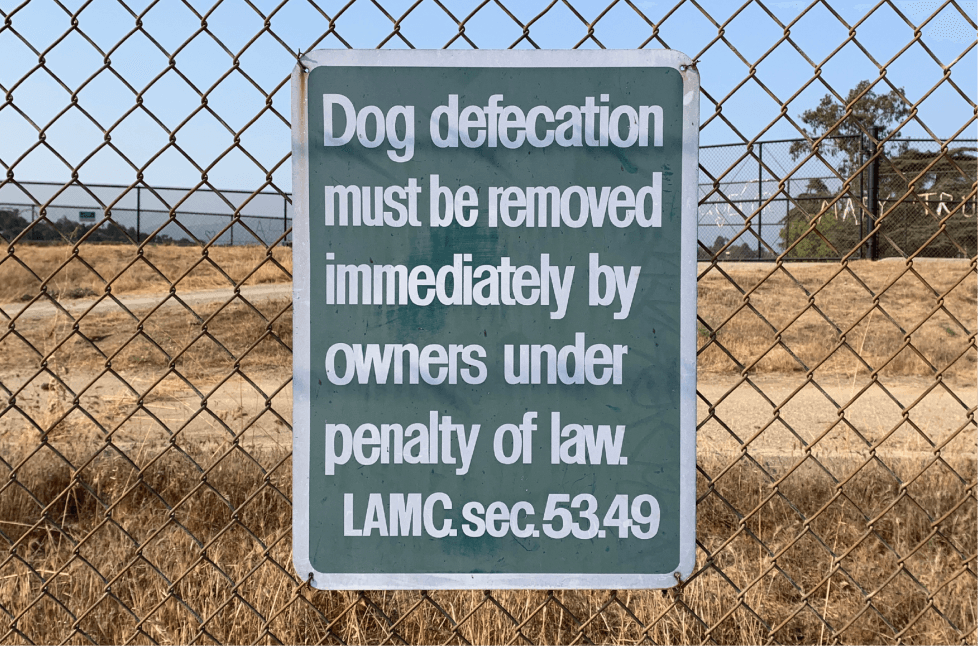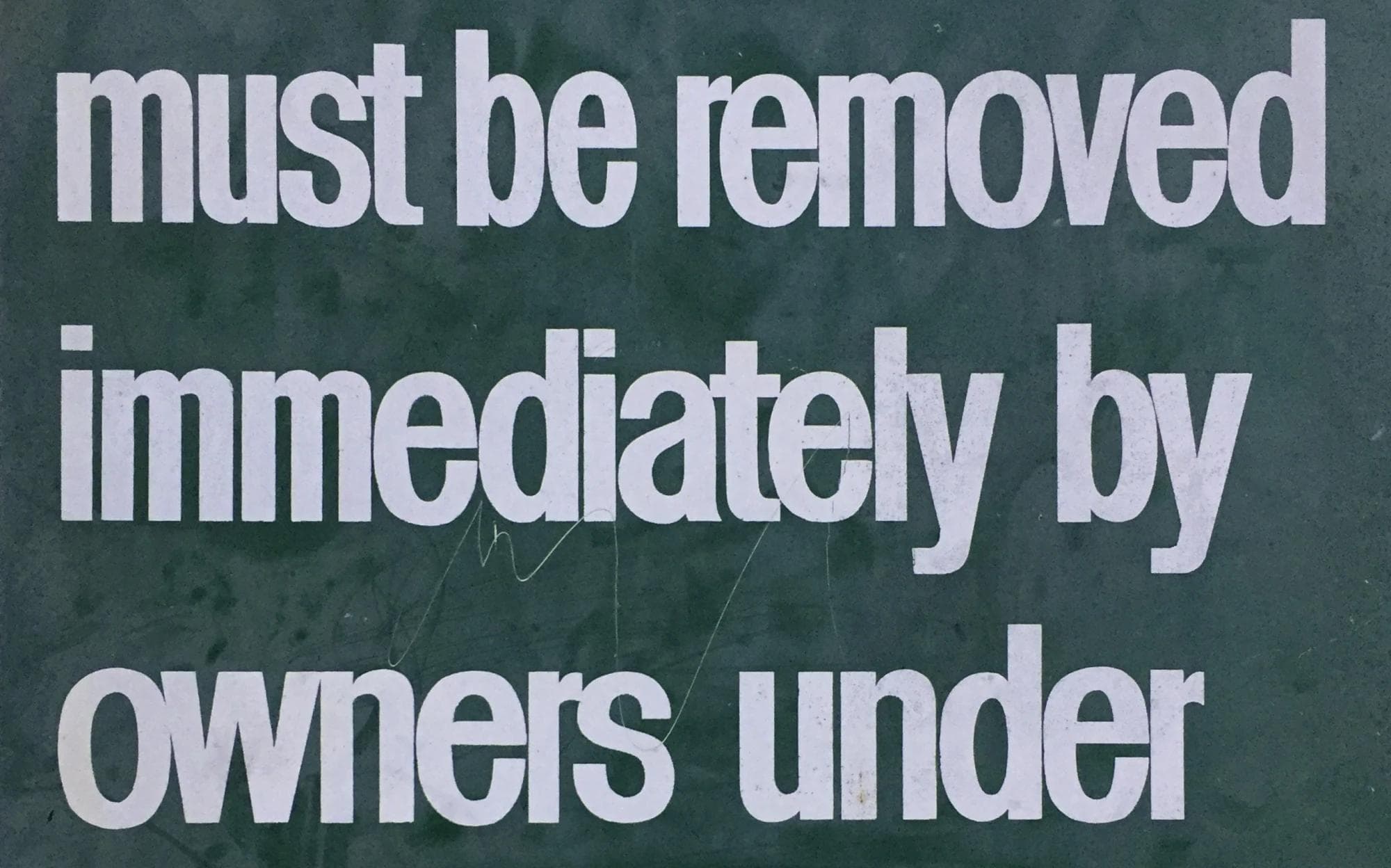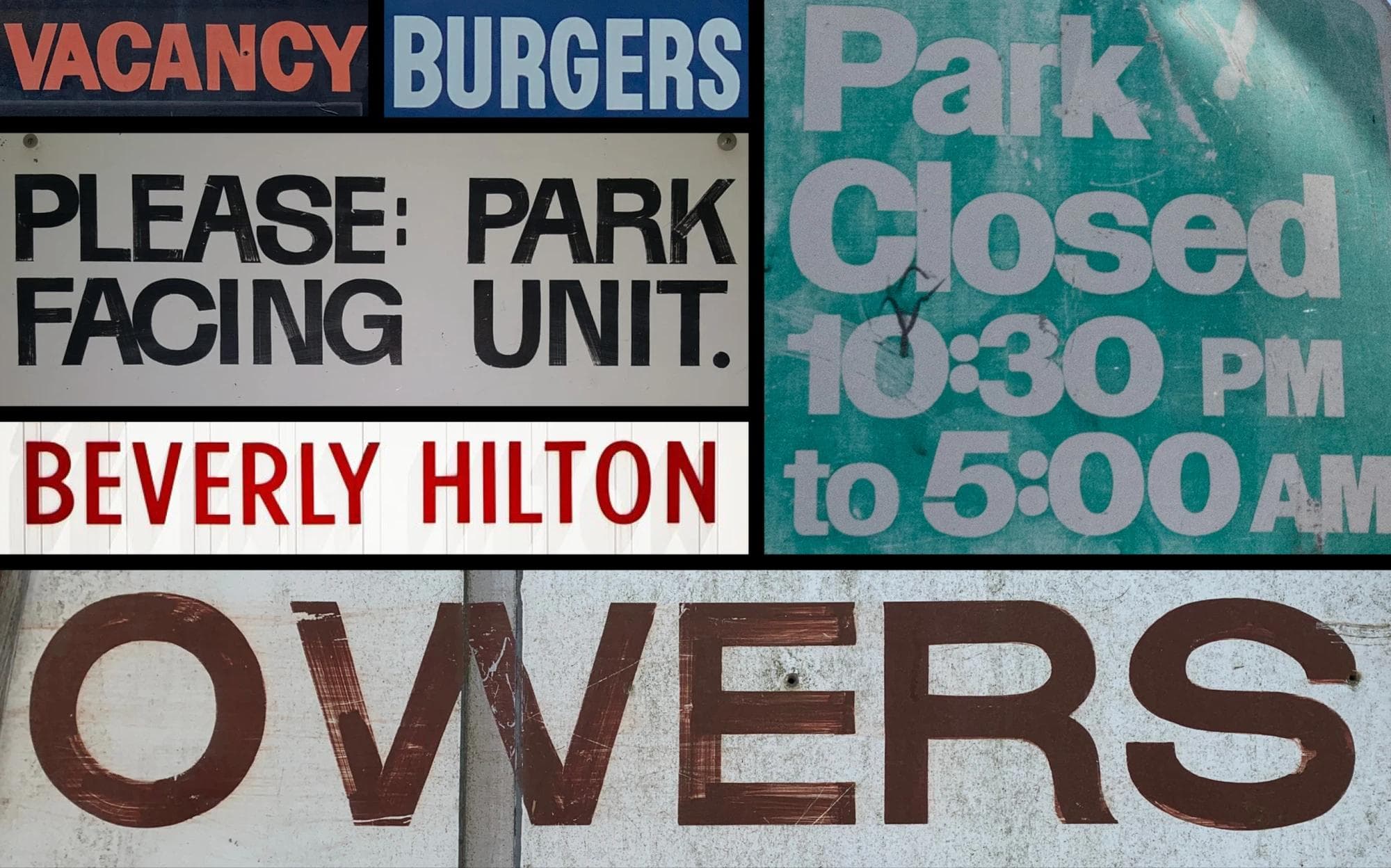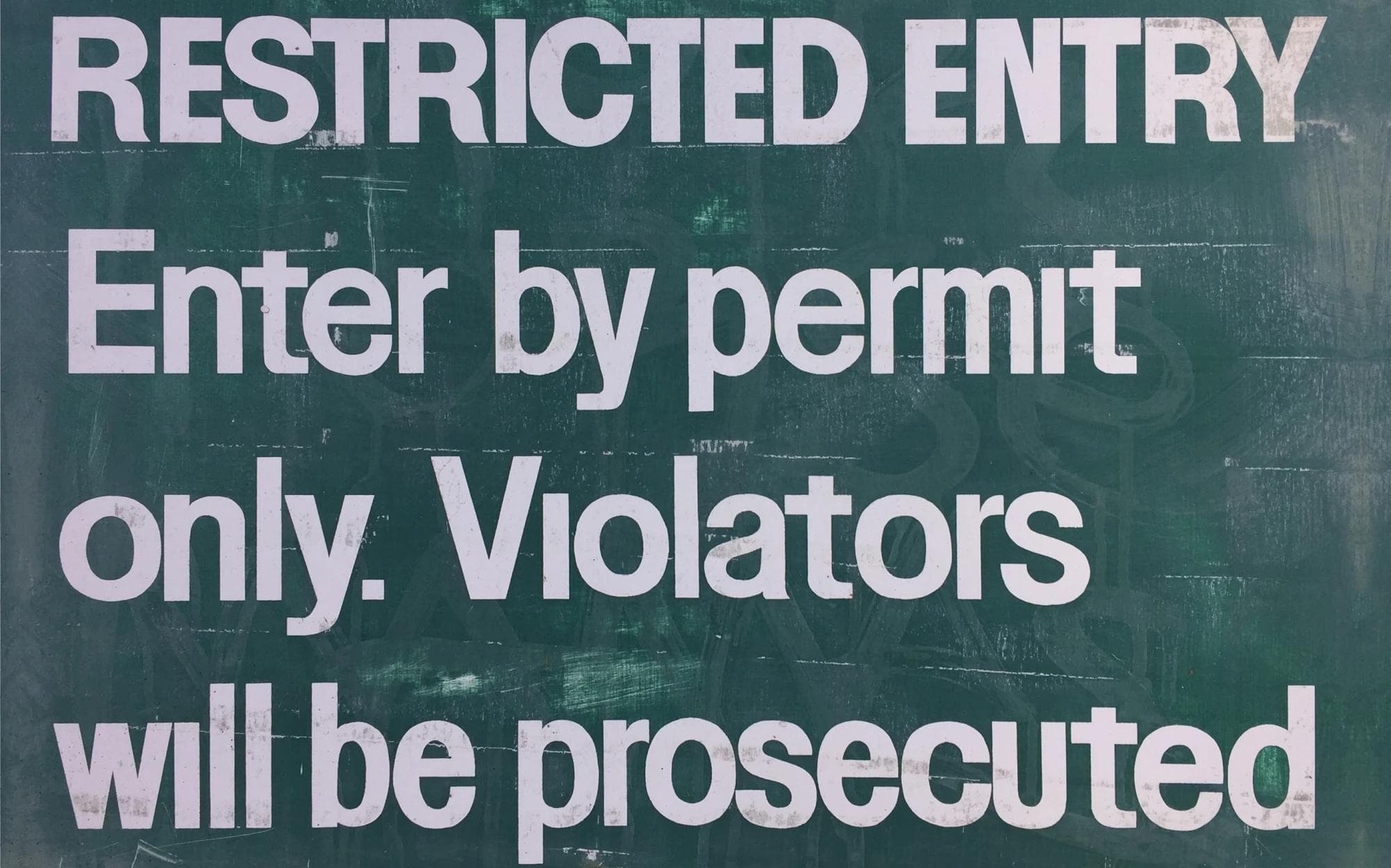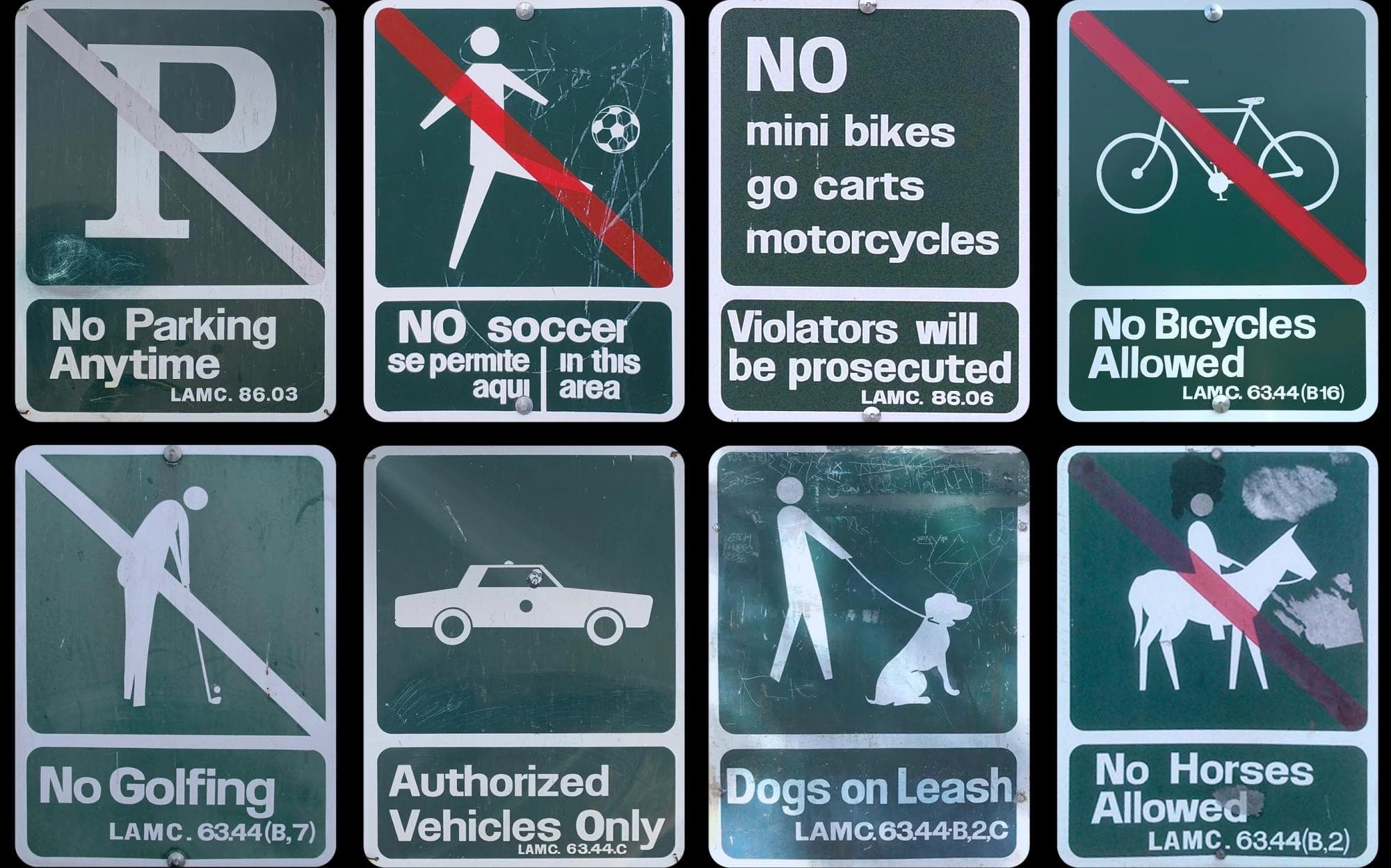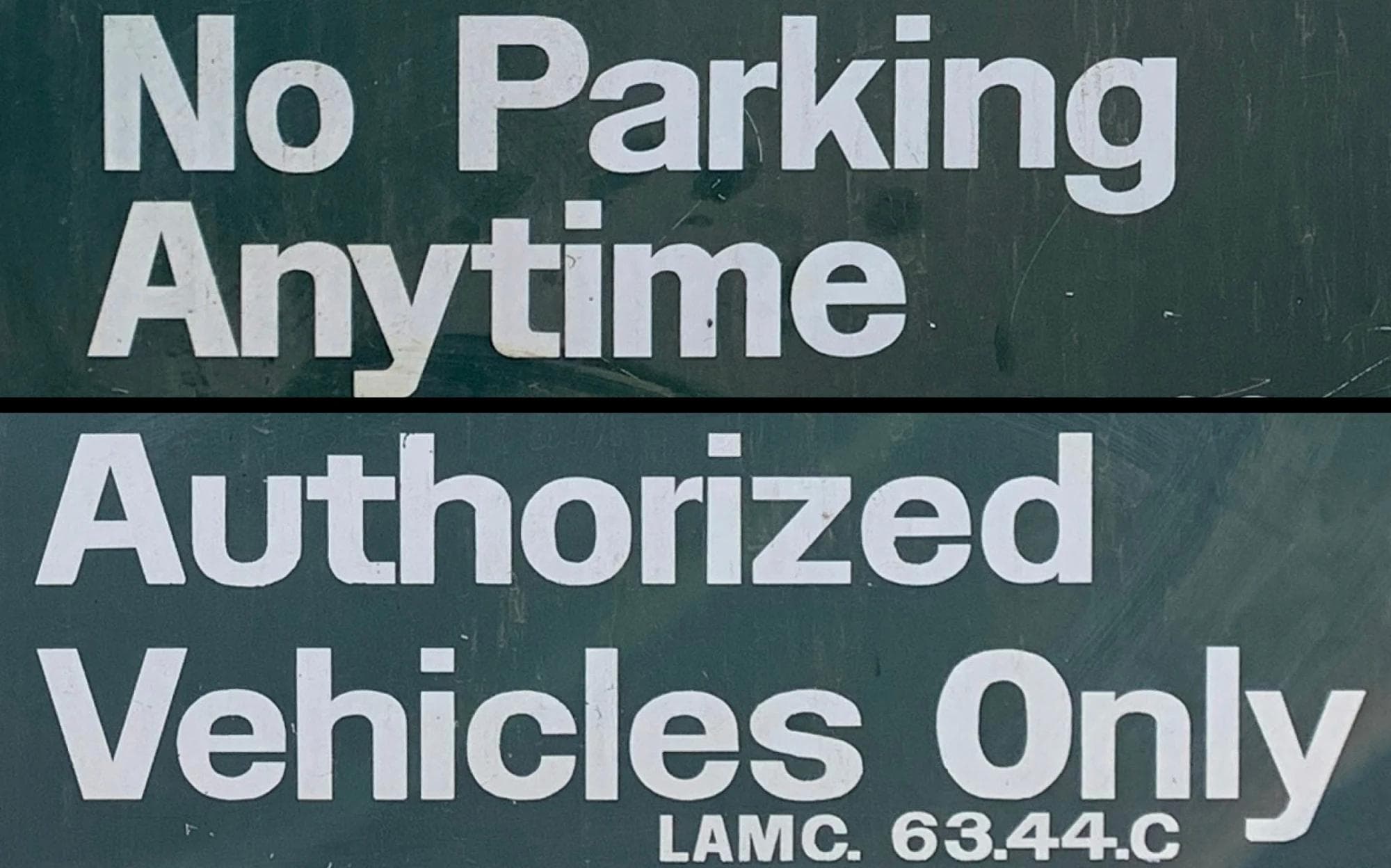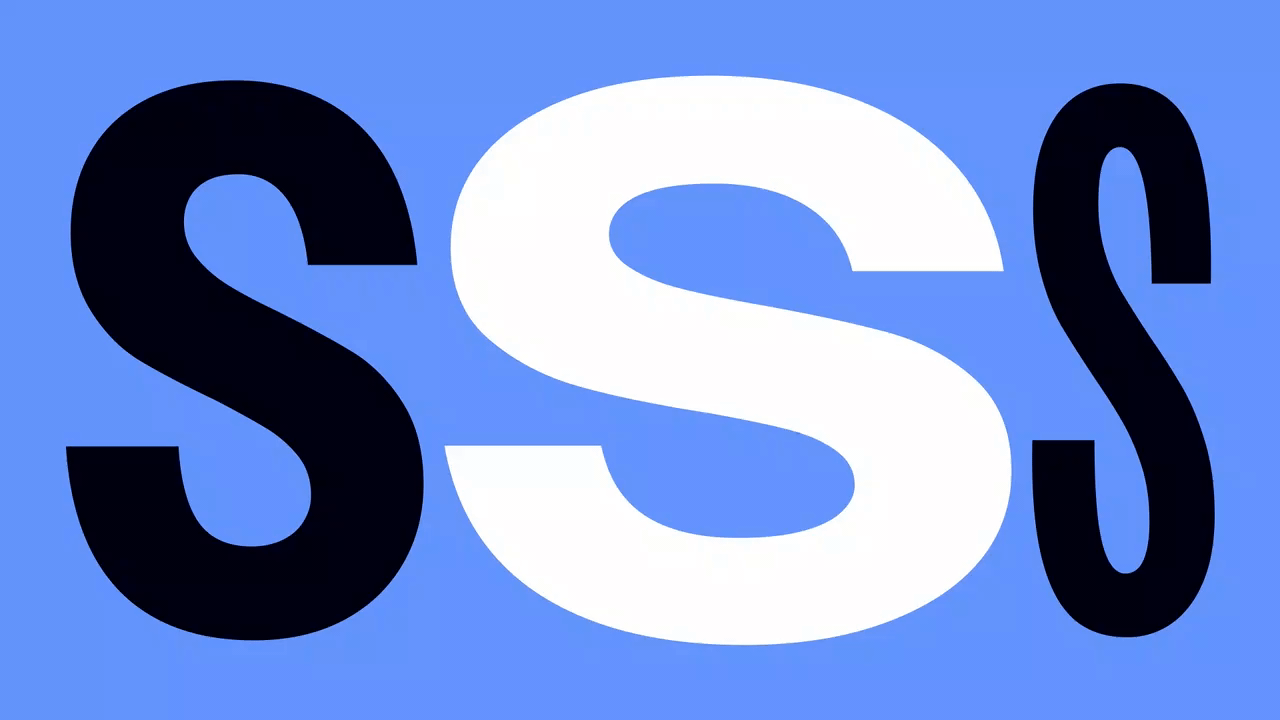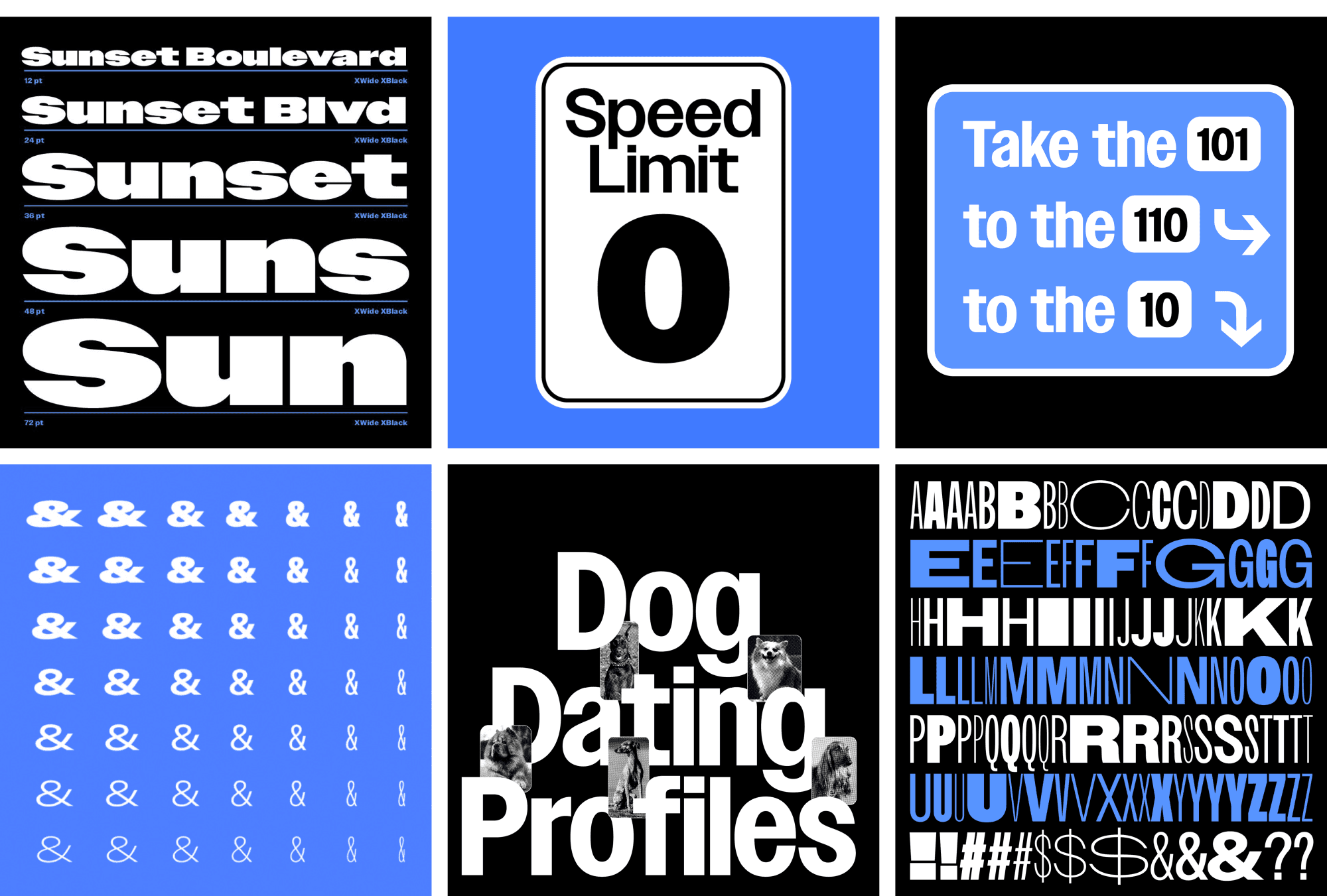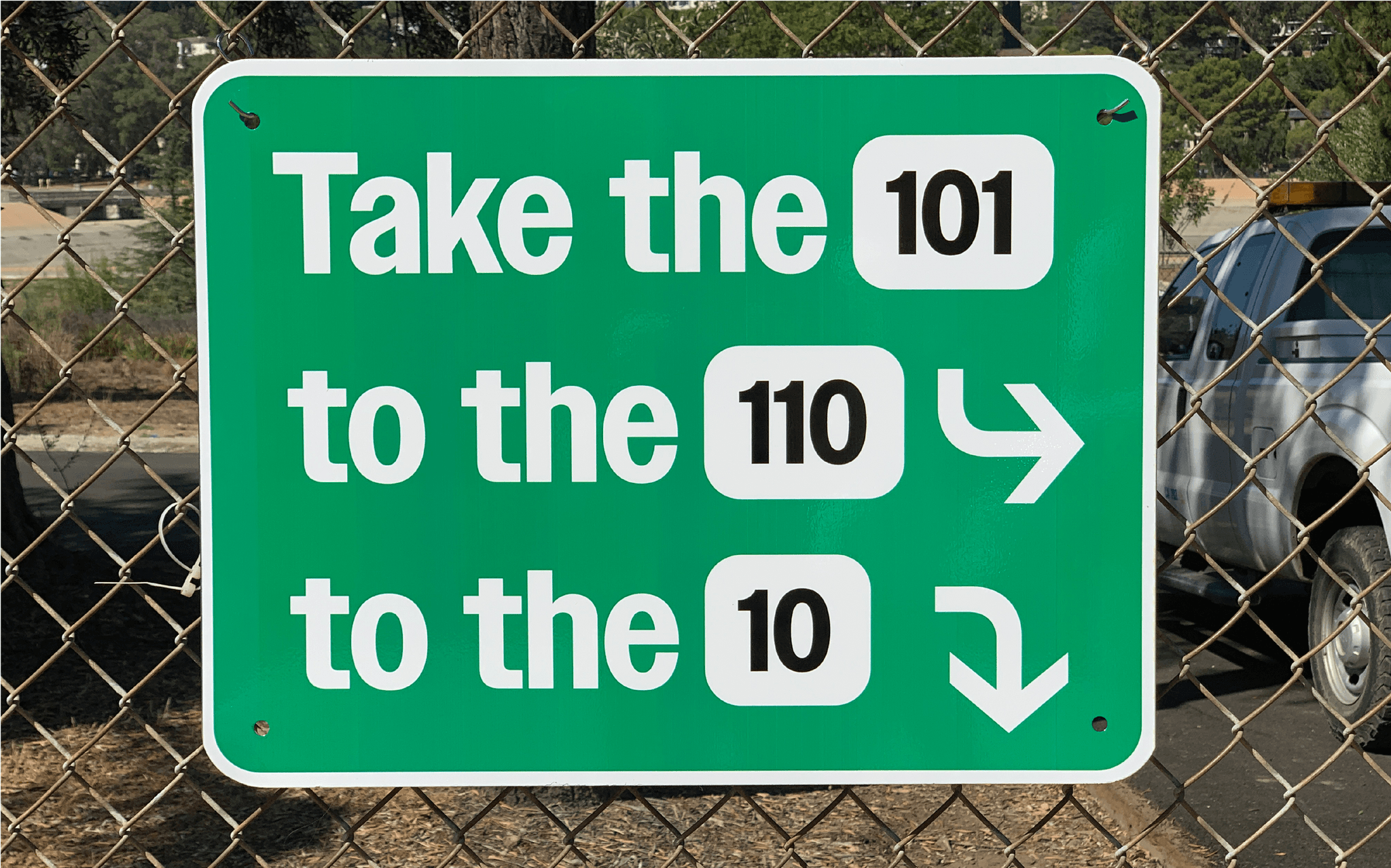
Designing Owners: Taking inspiration from the dynamic energy of handmade signage in the International Style as seen around Los Angeles.
Owners is an expressive family of fonts that takes inspiration from the dynamic energy of handmade signage as seen around Los Angeles. These signs are made in the International Style, but warmed up through the quirk and charm of vernacular signmakers’ unique approaches to letterform construction. As signs come in all shapes and sizes, the letters are often stretched to fill necessary spaces, thus Owners has a diverse range of weights and widths. The fonts are set tightly for maximum headline impact and logo-like presence, and there are also Text versions for use at small sizes.
In the summer of 2015 I moved from Minneapolis to Los Angeles with my husband Joe and our French bulldog Lucy. After living together in New York, Rhode Island, and Minnesota, we were excited to be relocating to sunny California.
We settled into the hills of Silverlake, a popular neighborhood with trendy restaurants and shops, well known for being one of the more walkable parts of LA. At the heart of Silverlake is its reservoir which features a two-mile path that locals love to walk and run around.
On one of our first walks with Lucy around the reservoir I was taken by a sign posted in various places along the path. Its message was straightforward — pick up after your dog — but something about the execution was exceptional.
At first glance it looked a bit like over-tracked Helvetica, but on closer inspection it became clear this was lettering.
I loved how tightly the letters were spaced, with some glyphs overlapping. Each letter was slightly different, and the construction and proportions of the characters were inconsistent and slightly naive.
I noticed similar signage in other public parks throughout LA. While there were common elements shared among them, it seemed each sign had been drawn by different hands. Some of the signs were spaced tightly and some were more conventional, but it was clear they had all been made by hand before being mass-produced.
Handmade signage, both historical and modern, can be spotted throughout Los Angeles. Many of the signs were created in the ‘International Style’ – 90° terminals, low contrast, and modern proportions. Perhaps this is common all over the country (or around the world), but in these applications a uniquely Californian vibe emerged and I began to conceptualize these ideas as a family of fonts. Just as signs come in all shapes and sizes,I thought that this style of lettering would lend itself well to a bigger family with a range of weights and widths.
Curious to learn more about the origin of the park signage, I posted on John Downers’ Sign Painting Support Group on Facebook. John agreed that these signs were handmade lettering that had been silkscreened and most likely produced in a municipal sign shop. As it was likely 30+ years ago since their creation, it was unlikely that any records would have been kept about who made the signs. He connected me with Doc Guthrie, the legendary LA sign painter and instructor of the Sign Graphics Program at LA Trade Tech, one of the last sign painting programs in the country.
Doc was blunt in his assessment: These were terrible signs, and they may have been painted by the silkscreeners themselves.
Silkscreeners were not sign painters. They wouldn’t know the rules about letterform construction or the sign-painting tricks of the trade. Doc reached out to a few colleagues but no one had any leads on the signs’ origin. He suggested inquiring with the LA Department of Transportation and the Department of Public Works, but after multiple unreturned phone calls and emails I gave up. The identities of the original sign makers may be lost to history, but their work became the inspiration for this project.
I began drafting the fonts that would become Owners in early 2018, named as an homage to the sign from the reservoir. In some of my early tests, I wrestled with what to keep and what to let go from the source material. I loved the tight spacing, the large x-height, and the overall personality of the park signage, but I wanted to be careful to make this more than just a digitization. Partially inspired by the variable fonts I made for adidas, I performed some tests for very wide and very narrow versions, as well as drawing light and heavy weights. With a full draft of the widths and weights in hand, I could really envision the possibilities of this family.
One detail which became a defining characteristic of Owners comes from the original sign at the reservoir — an inconsistency in the construction on the way strokes join. Round characters like b d p q have a smooth connection to the vertical stem, while characters like h m n r u have a hard join. And the wonderful a exhibits both of these qualities, a smooth join at the top and a hard connection at the bottom. While this played against my usual instincts for a standardized approach, it added a great deal of warmth and subtle personality to the design.
Tight spacing is one of Owners’ most distinctive qualities. While this works great in headlines, it causes problems at small sizes.
To bring the design process full circle, I decided to produce some signage of our own and install it (temporarily) at the reservoir.